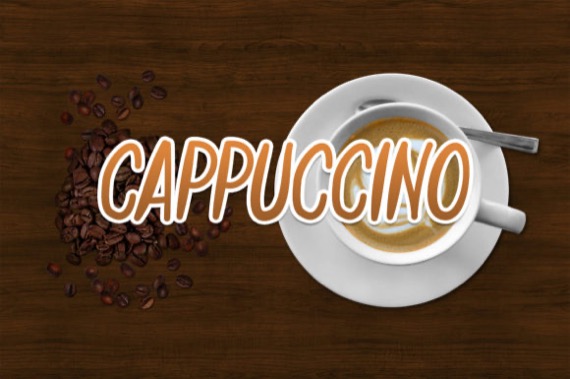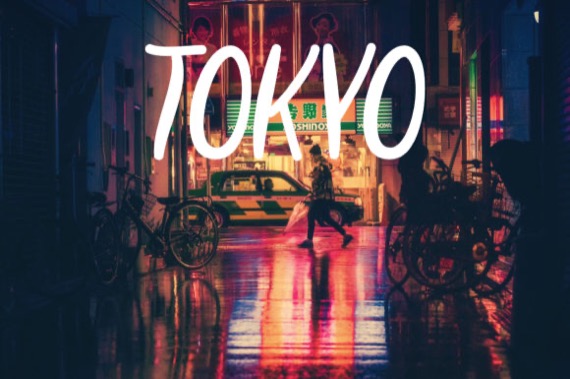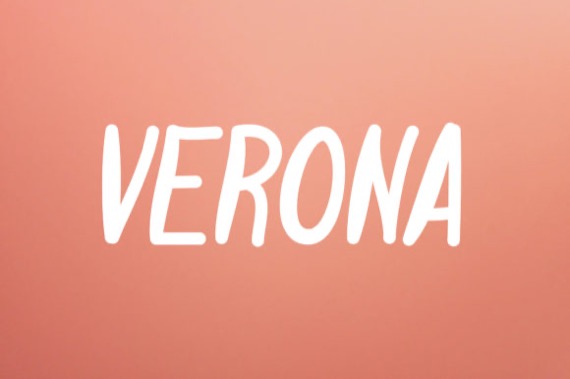
Verona – Display Handwritten Script Font from Vladimir Carrer, is a modern script font based on the expression of cool handwriting. It is ideal for any casual design that you wish to develop. Let your imagination run free!
Verona Display Script Font